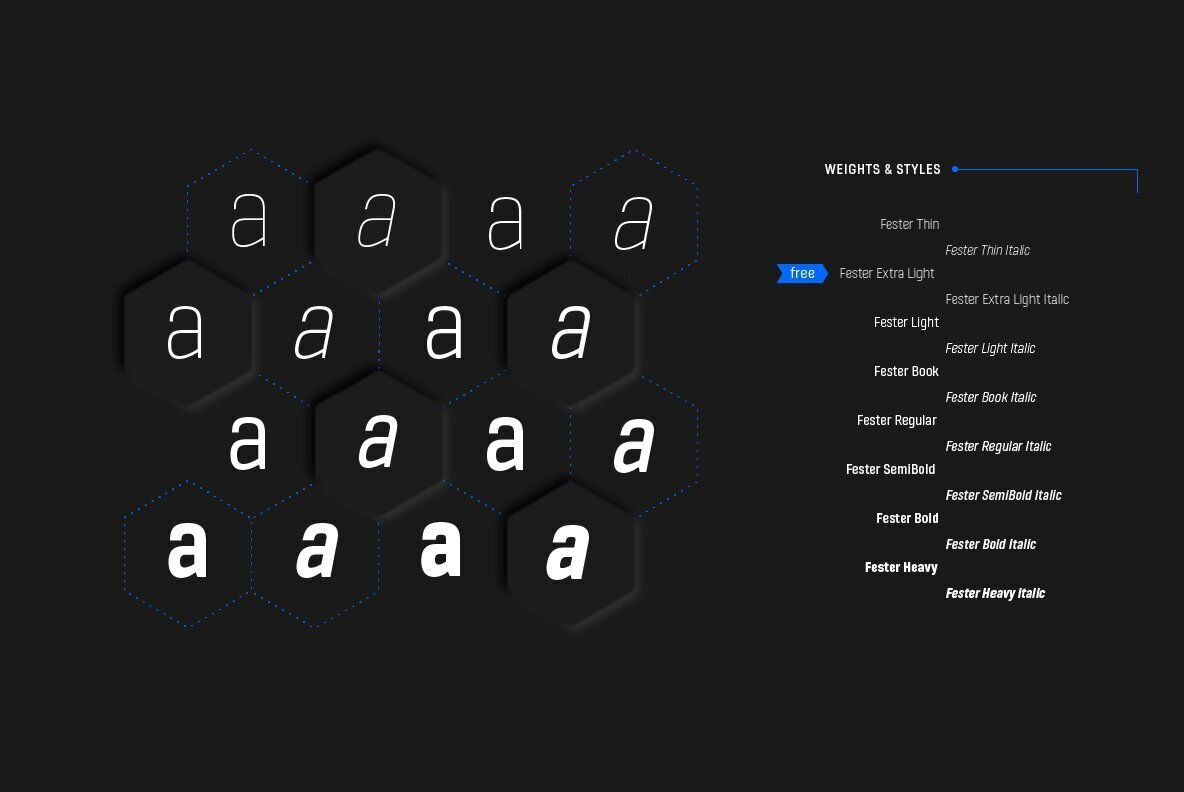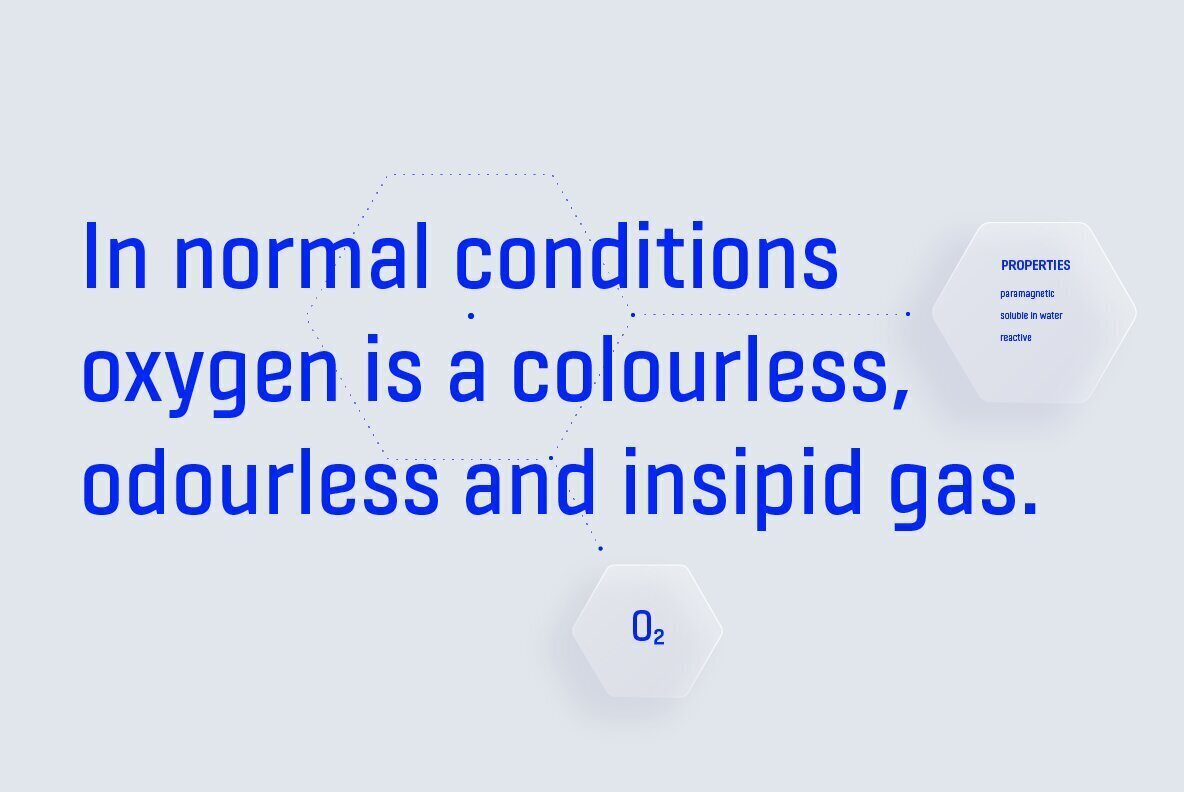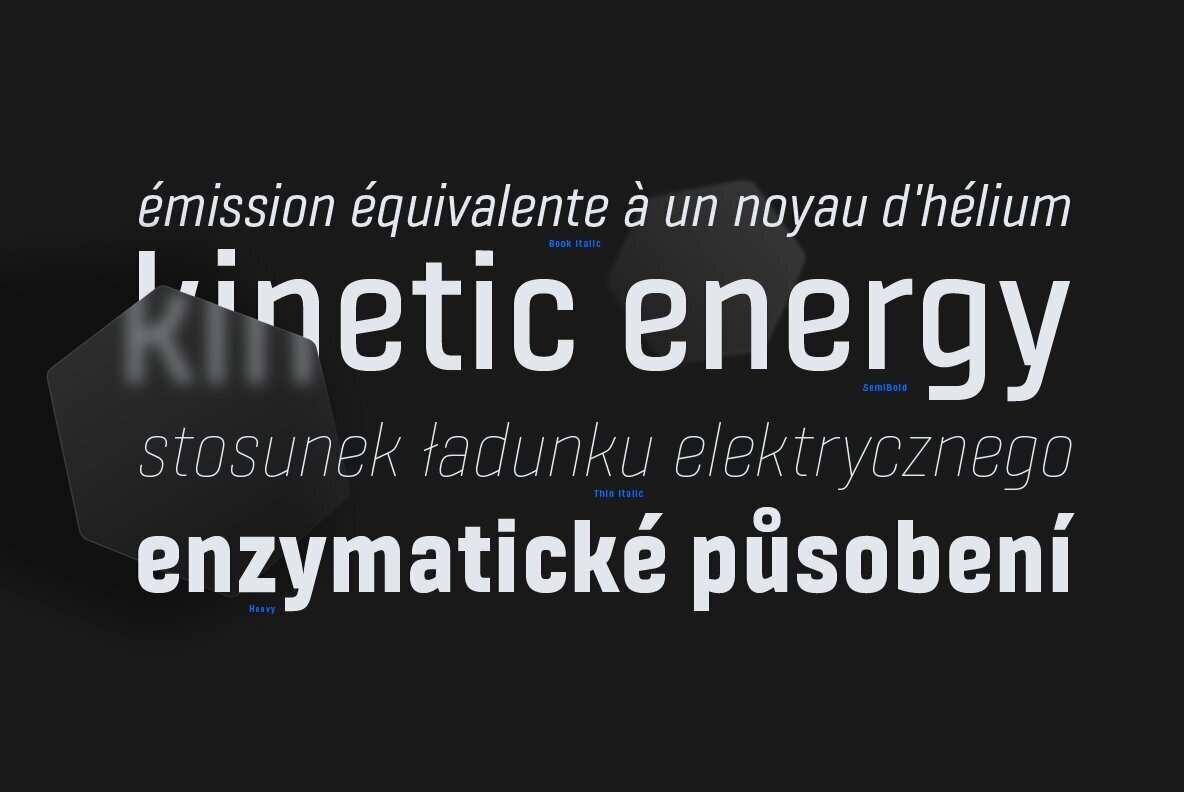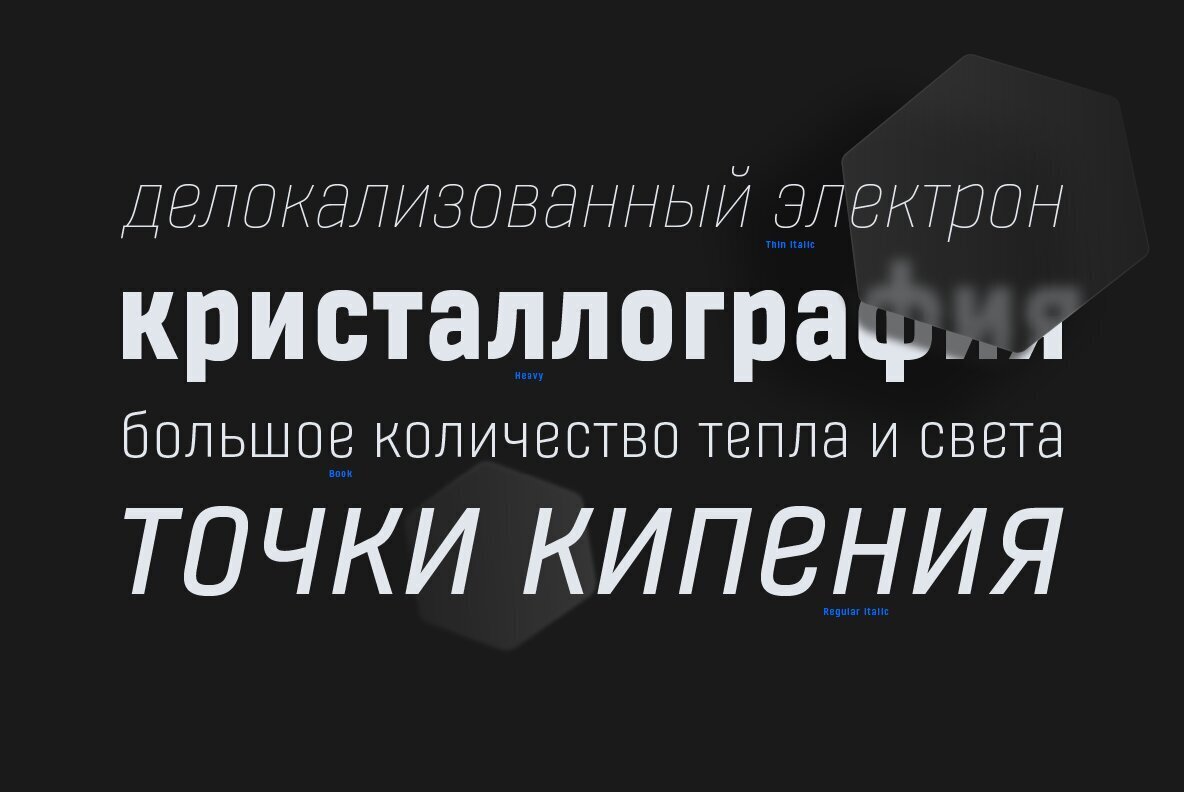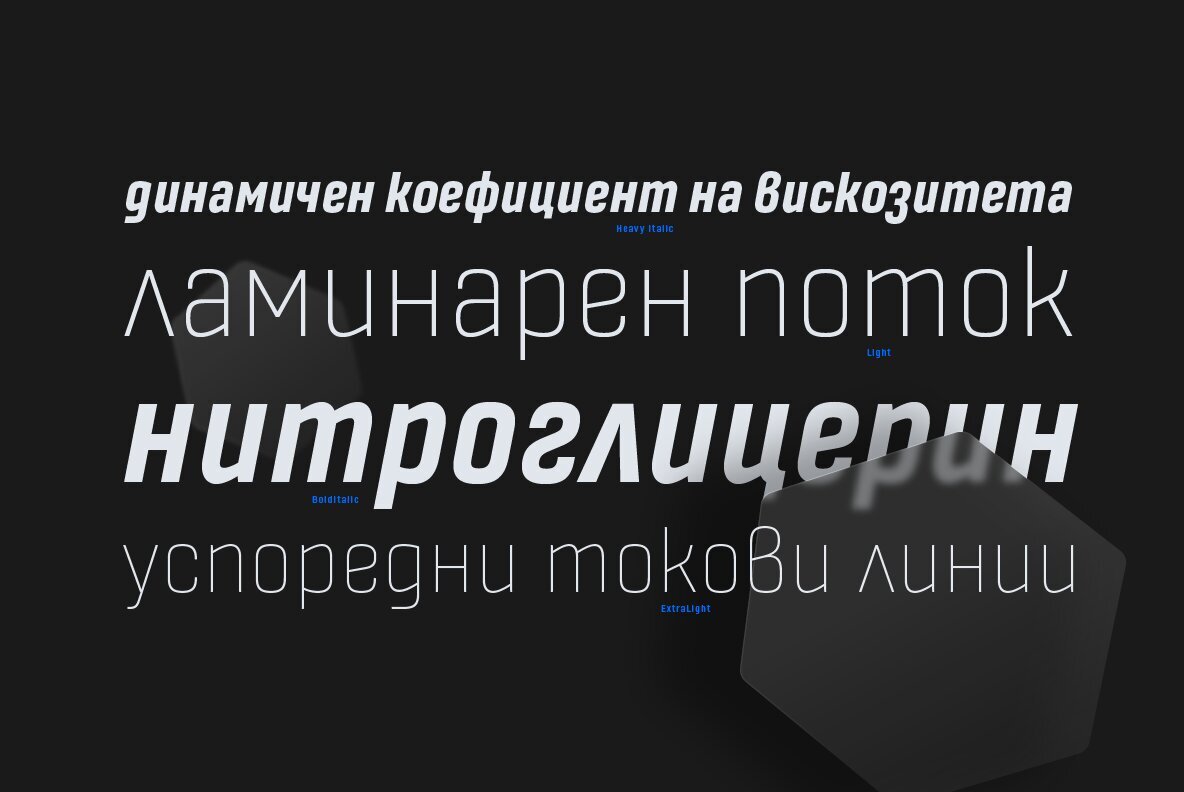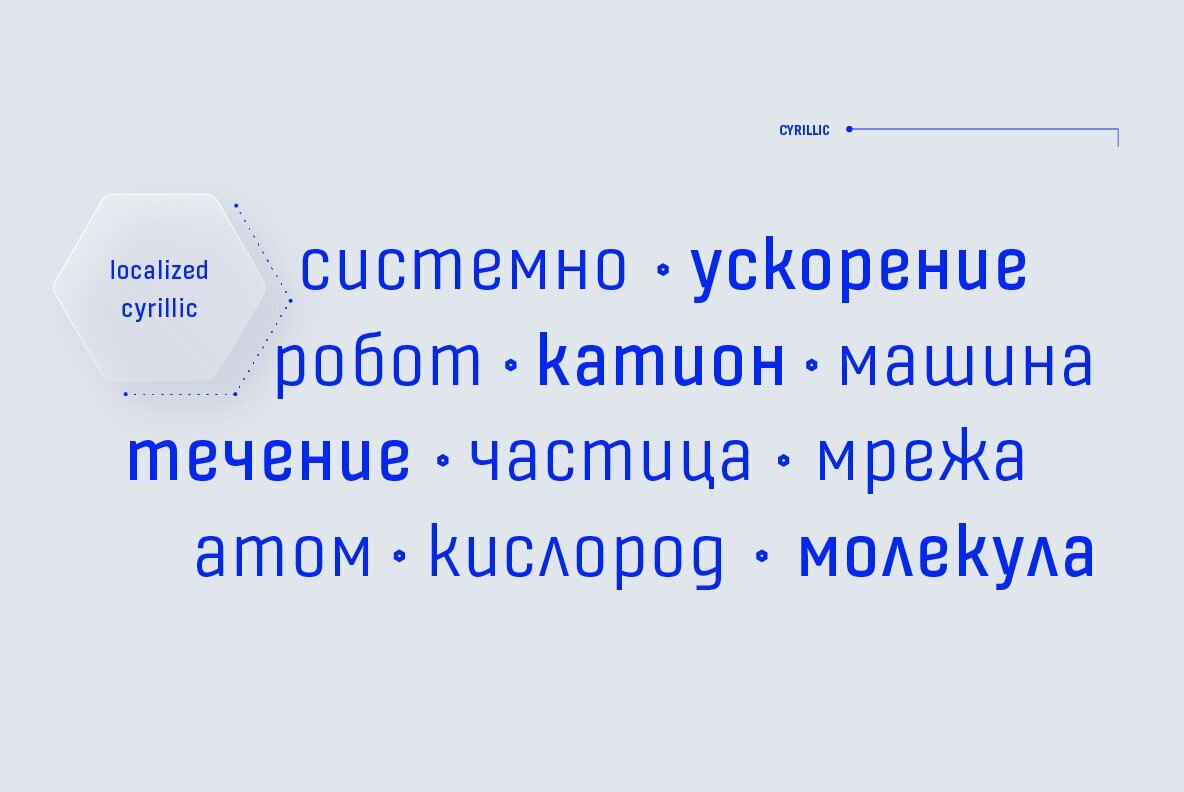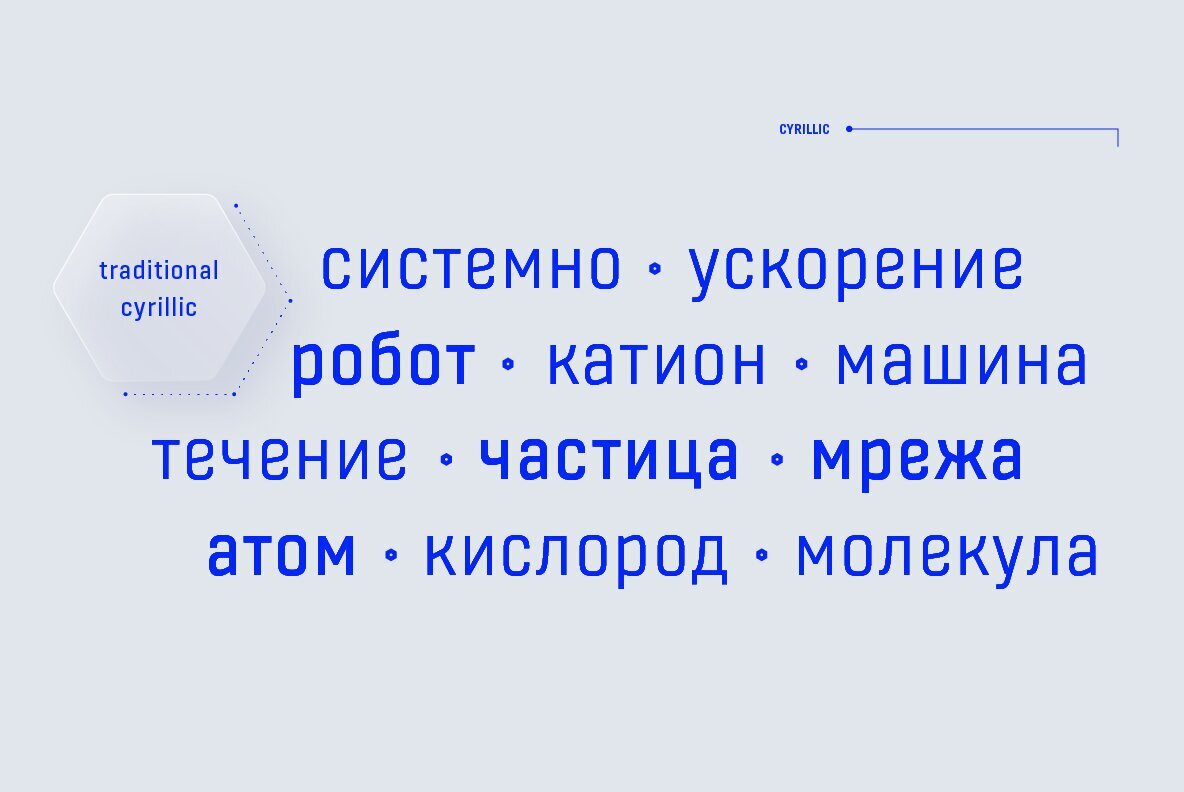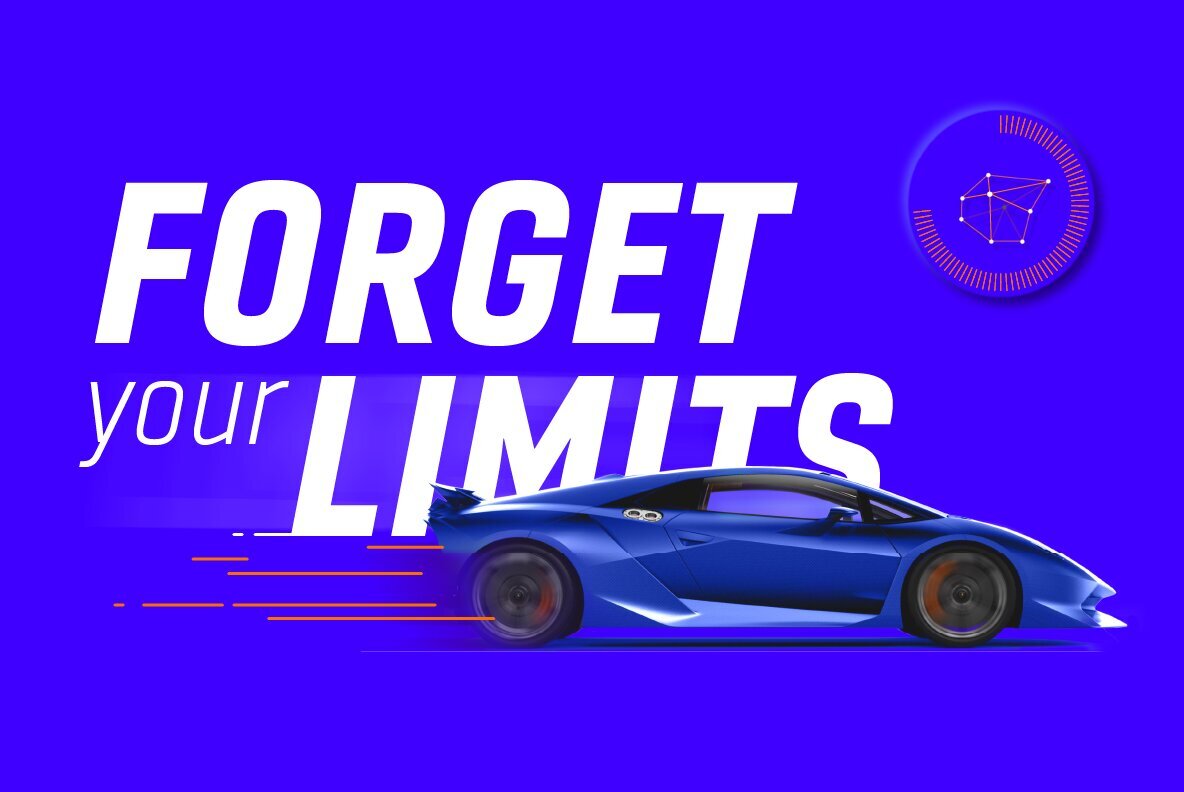
Fester Font
After several years of iterations, our brand new sans family of 16 styles is ready to take over with vector excellence! Fester is a semi-condensed Grotesque developed to beam big messages across the galaxy with a clear, bold voice. Emerging as if from the future, this low-contrast sans warps slick lines and sharp terminals into unexpected geometric shapes for extra flair. Ranging from Thin to Heavy, the typeface is loaded with 8 weights + italics, one variable style, over 760 glyphs, and Extended Latin + Cyrillic for flawless work at hyper-speed. Fester syncs with designs that feature big type, sharp layouts, interfaces, outlines, and raster images to help decipher any cutting-edge idea and make a memorable first contact.
Family overview:
• 8 weights (from Thin to Heavy) + italics
• Extended Latin
• Cyrillic
• 760 glyphs
• Variable Font
• 130+ languages
OpenType Features:
• Localized Forms
• Subscript and scientific inferiors
• Superscript (Superiors)
• Numerators and Denominators
• Fractions
• Lining Figures
• Tabular Figures
• Oldstyle Figures
• Case-Sensitive Forms
• Standard and Discretionary Ligatures
• Stylistic Alternates
• Contextual Alternates
• Slashed Zero